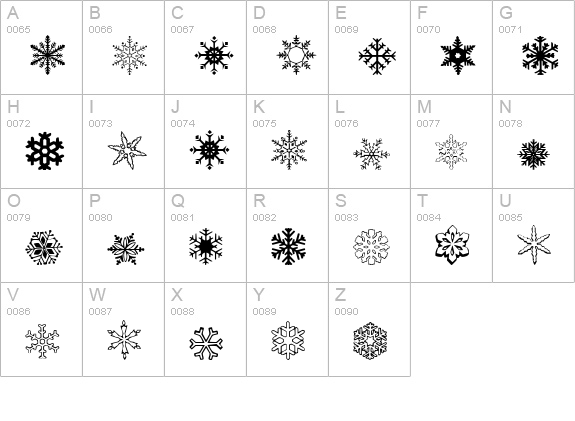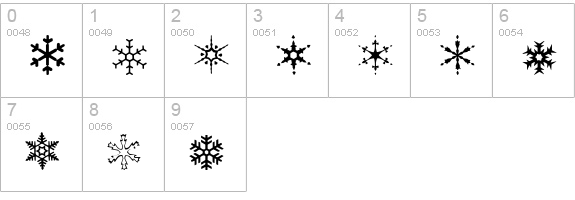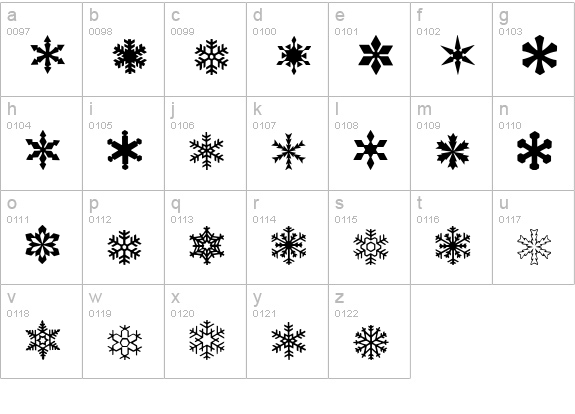
WWFlakes Font Details
Introducing WWFlakes, a stunningly versatile font that captures the essence of elegance and sophistication. With its intricate and delicate design, WWFlakes adds a touch of refinement to any project, making it the perfect choice for those seeking to elevate their creative endeavors. This unique font showcases a harmonious blend of graceful curves and intricate details, resulting in a truly mesmerizing visual experience. Each letter is meticulously crafted, exuding a sense of artistry and craftsmanship. Whether used for headlines, logos, invitations, or any other design project, WWFlakes effortlessly captures attention and leaves a lasting impression. What makes WWFlakes even more remarkable is that it is freely available for download at FontsMarket.com. This means that you can bring this exceptional font into your creative arsenal without any cost, allowing you to explore its limitless potential in your designs. With WWFlakes, you have the freedom to create captivating visuals that stand out from the crowd, without breaking the bank. Don't miss the opportunity to enhance your designs with the beauty and versatility of WWFlakes. Download this breathtaking font from FontsMarket.com today and unleash your creativity like never before. With WWFlakes by your side, the possibilities are endless.